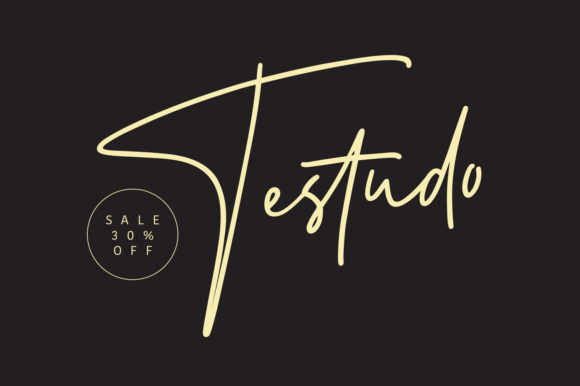
Testudo: A Timeless Saga of Script Elegance
Meet Testudo, a font that captivates with its bold and delicate strokes, reminiscent of a timeless tale. This handwritten marvel, crafted by Maulana Creative, is a symphony of authenticity and elegance, ready to weave its charm into your designs.
Step into a world where script elegance reigns supreme, where every letter dances with a life of its own, carrying a rich history in its curves. Testudo is a journey through time, a font that evokes the charm of ageless manuscripts and the beauty of classic calligraphy.
With Testudo, you'll find a versatile companion that effortlessly adapts to your creative vision. Whether you seek to craft enchanting logos, captivating social media posts, alluring invitations, or heartfelt handwritten notes, Testudo is your muse.
Unleash your imagination and watch as Testudo transforms your words into visual poetry. Its bold strokes command attention, while its light touches add a hint of ethereal grace. Whether you're a seasoned designer or just starting your creative journey, Testudo is your trusted guide, leading you to a world of boundless expression.
Embrace Testudo, and embark on a creative odyssey where your words will leave an unforgettable mark. Its elegant script will turn your designs into captivating works of art, enchanting your audience and leaving them awe-inspired.